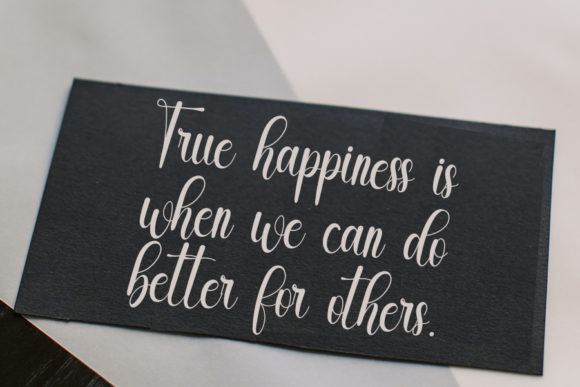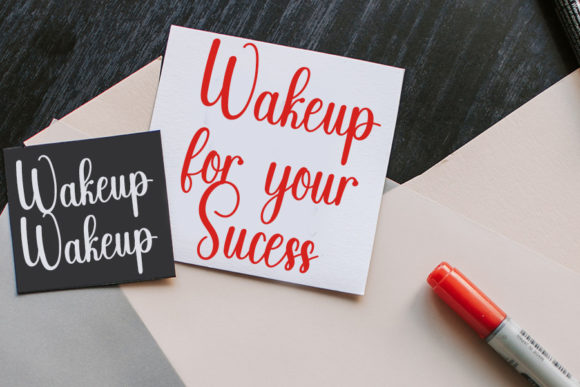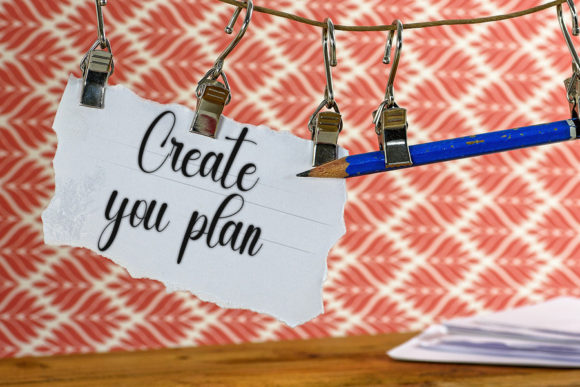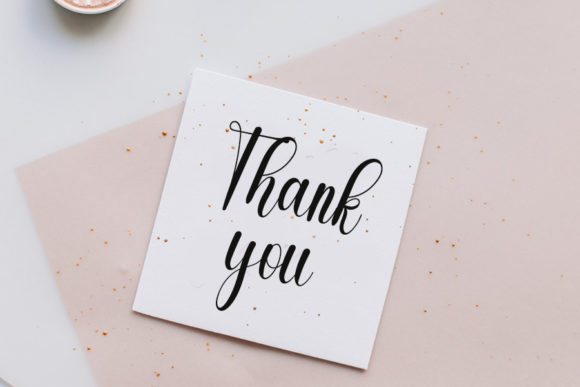
Handmade is a casual handwritten font, carefully designed to become a true favorite. It maintains its classy calligraphic influences while feeling contemporary and fresh. Handmade is PUA encoded which means you can access all glyphs and swashes with ease!